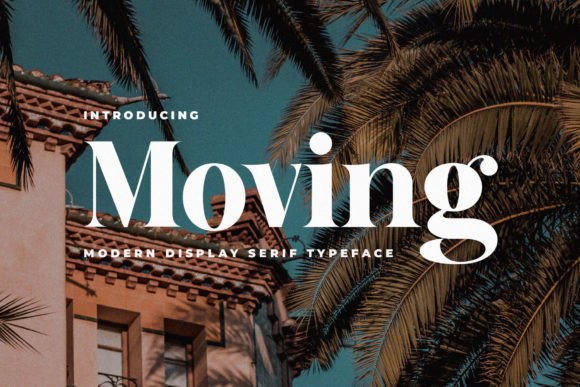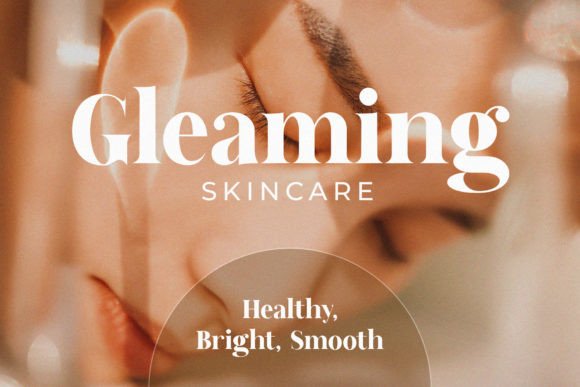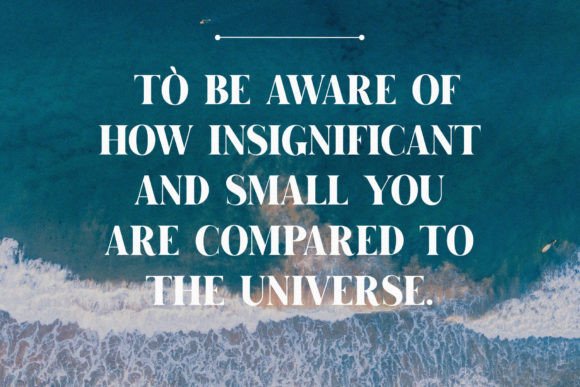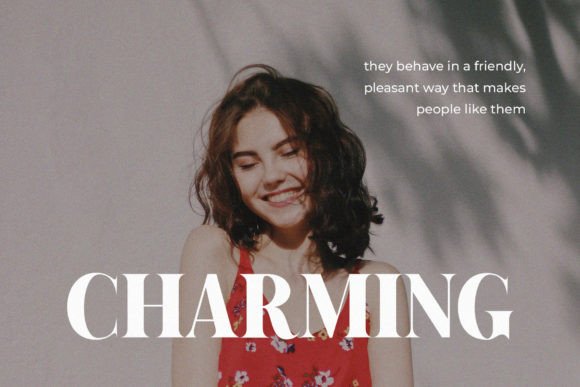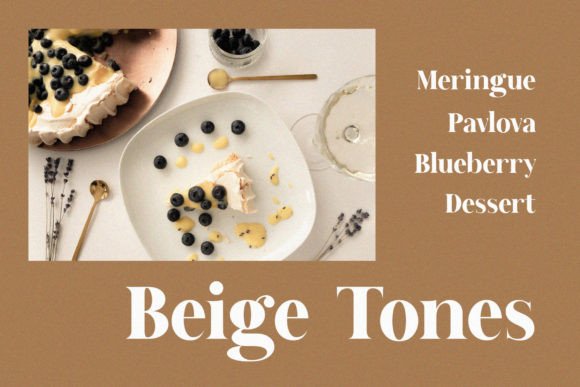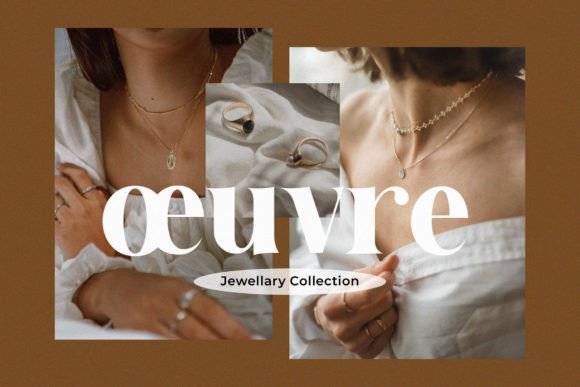
Introduction to Moving Font
Have you ever stared at a blank canvas, trying to find the perfect font to bring your creative project to life? It’s that moment when you feel like you’re searching for a needle in a haystack, and just when you think all hope is lost, you stumble upon the perfect design resource.
That’s exactly what happened to many designers when they discovered the Moving Font. This sleek, minimalist font has been making waves in the design community, and for good reason. With its transparent background and high-quality design, it’s the perfect addition to any creative project, from elegant crafting to beauty design.
Key Features of Moving Font
- High-quality, vector-based design for crisp and clear visuals at any resolution.
- Customizable, allowing users to adjust the font to suit their specific needs and style.
- Transparent background option, providing flexibility in design composition and layout.
- Perfect for use in creative projects such as animations, videos, and presentations.
Honest Review: Moving Font
I recently stumbled upon Moving Font, and I must say, it’s a great addition to any designer’s toolkit. As a creative project, it’s perfect for adding a touch of movement to your designs.
- High quality: The font is well-designed and looks great in most situations.
- Transparent background: This feature makes it easy to customize and combine with other design elements.
- Customization options are limited, making it difficult to fully personalize the font.
- The font may not be suitable for all types of designs, especially those requiring a lot of fine-tuning.
Overall, Moving Font is a great design resource that can add a unique touch to your creative projects. While it has its limitations, it’s definitely worth checking out – especially if you’re looking for a free, high-quality font to spice up your designs.
Moving Font
Moving Font is a versatile design resource that offers a high-quality, free download option for creative projects. With its transparent background, it can be easily integrated into various design platforms.
Tips for Getting the Most Out of Moving Font
Experiment with different font sizes, colors, and styles to create a unique visual effect. Use the transparent background to create a sense of depth and dimensionality.
Moving Font is ideal for creating eye-catching headings, titles, and captions for presentations, videos, and social media posts. It’s also great for adding a touch of creativity to brochures, flyers, and other marketing materials.